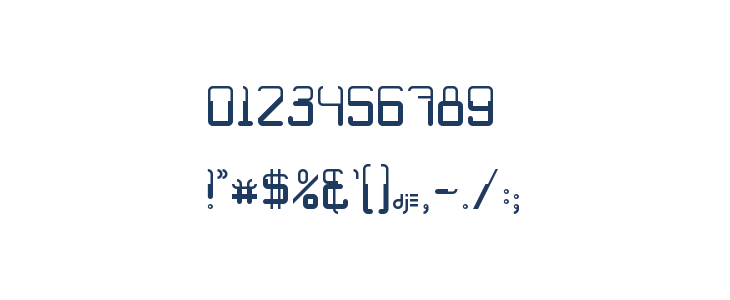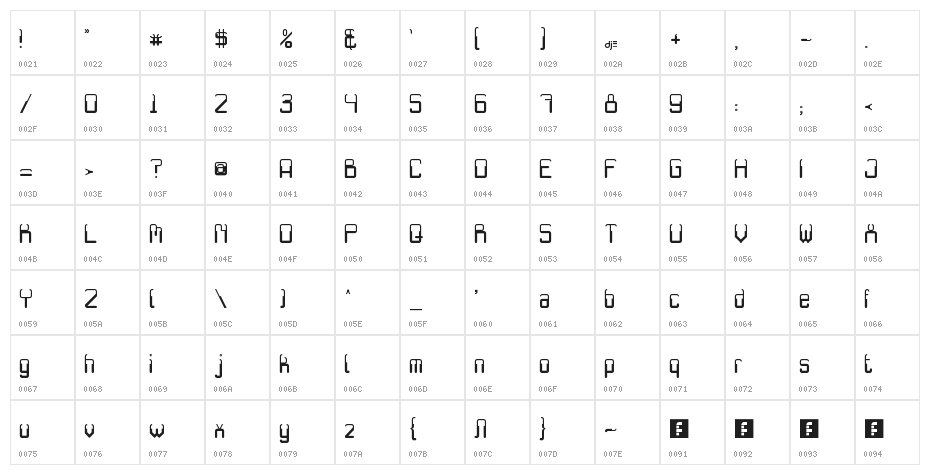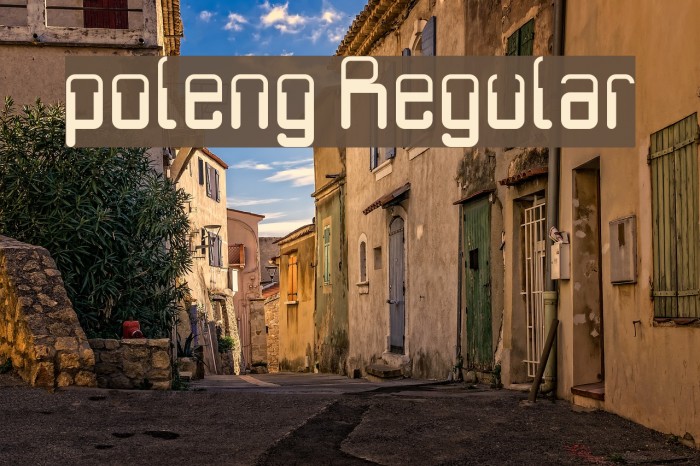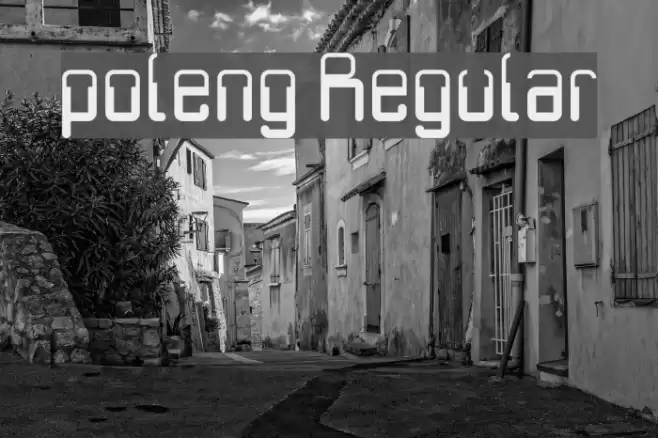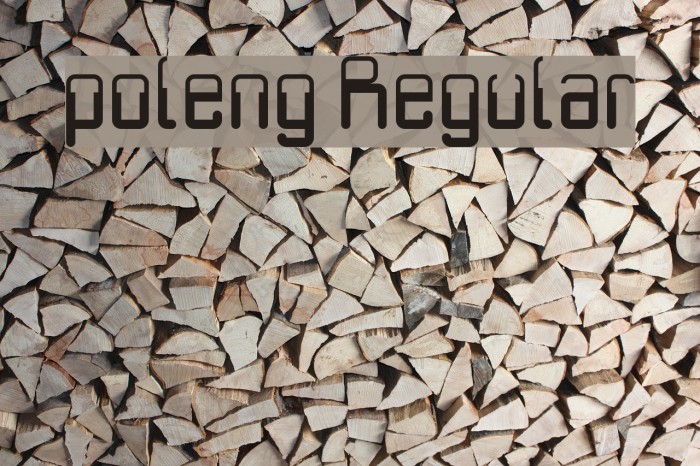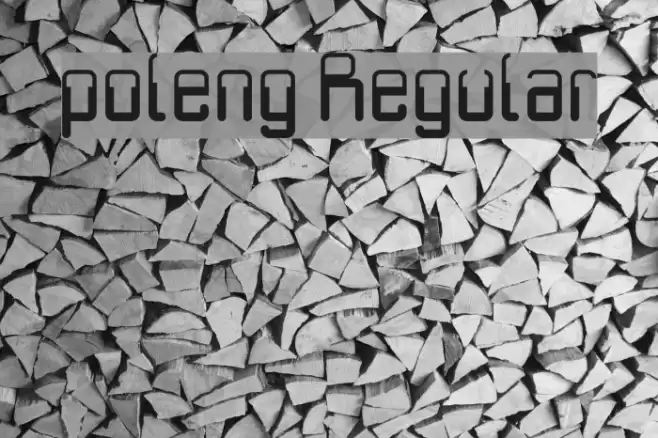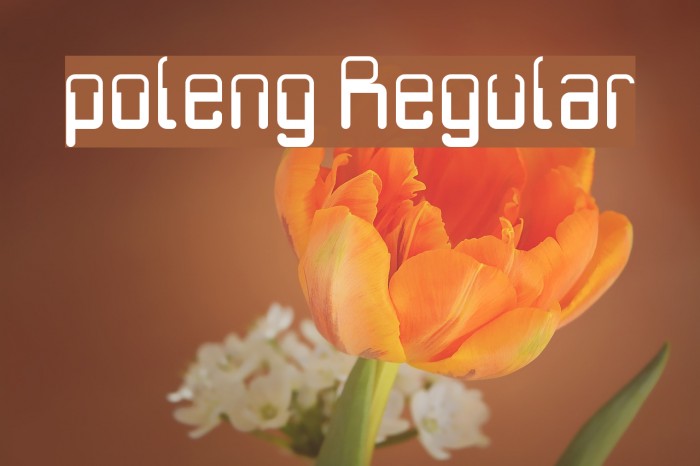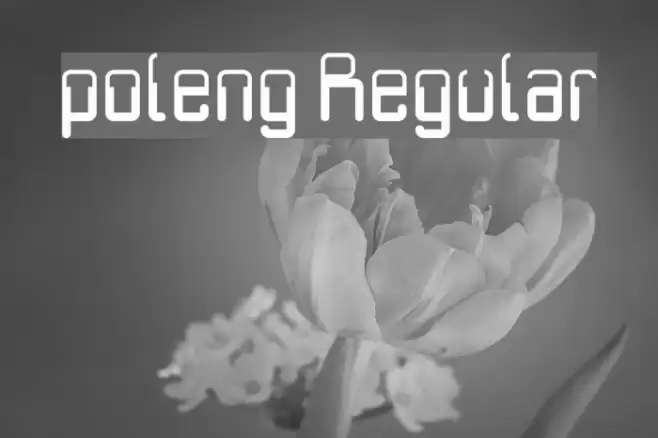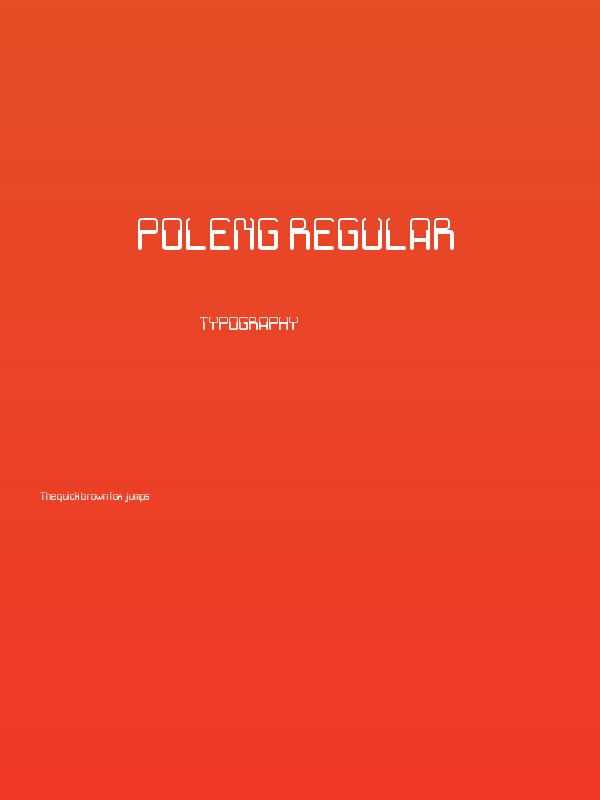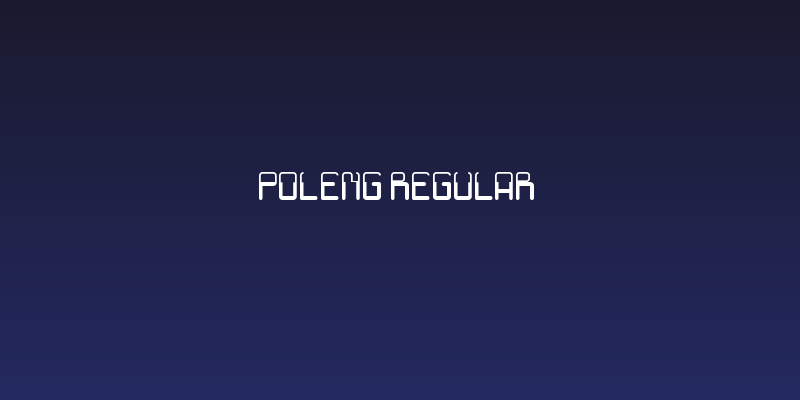
poleng Regular Font
poleng Regular Description
This font features a modern and geometric design with rounded edges and a consistent stroke width. The uppercase and lowercase letters maintain a uniform height, giving it a monospaced appearance. The numerals and special characters are designed to match the overall style, with a focus on simplicity and readability. The font's clean lines and structured form make it suitable for both digital and print media, offering a contemporary look that is both functional and stylish.
| Proposed Projects | Ideal for tech branding, user interfaces, digital content, and modern print designs. |